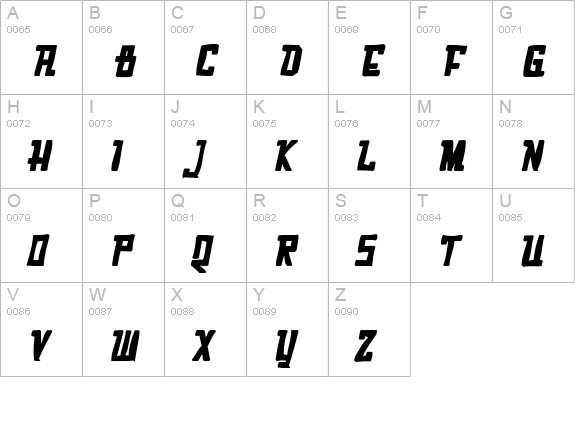
Fabian Ink Italic Font Details
Fabian Ink Italic is a distinctive, italic variant in the Fabian typeface family \xE2\x80\x94 well suited to design and typography projects.